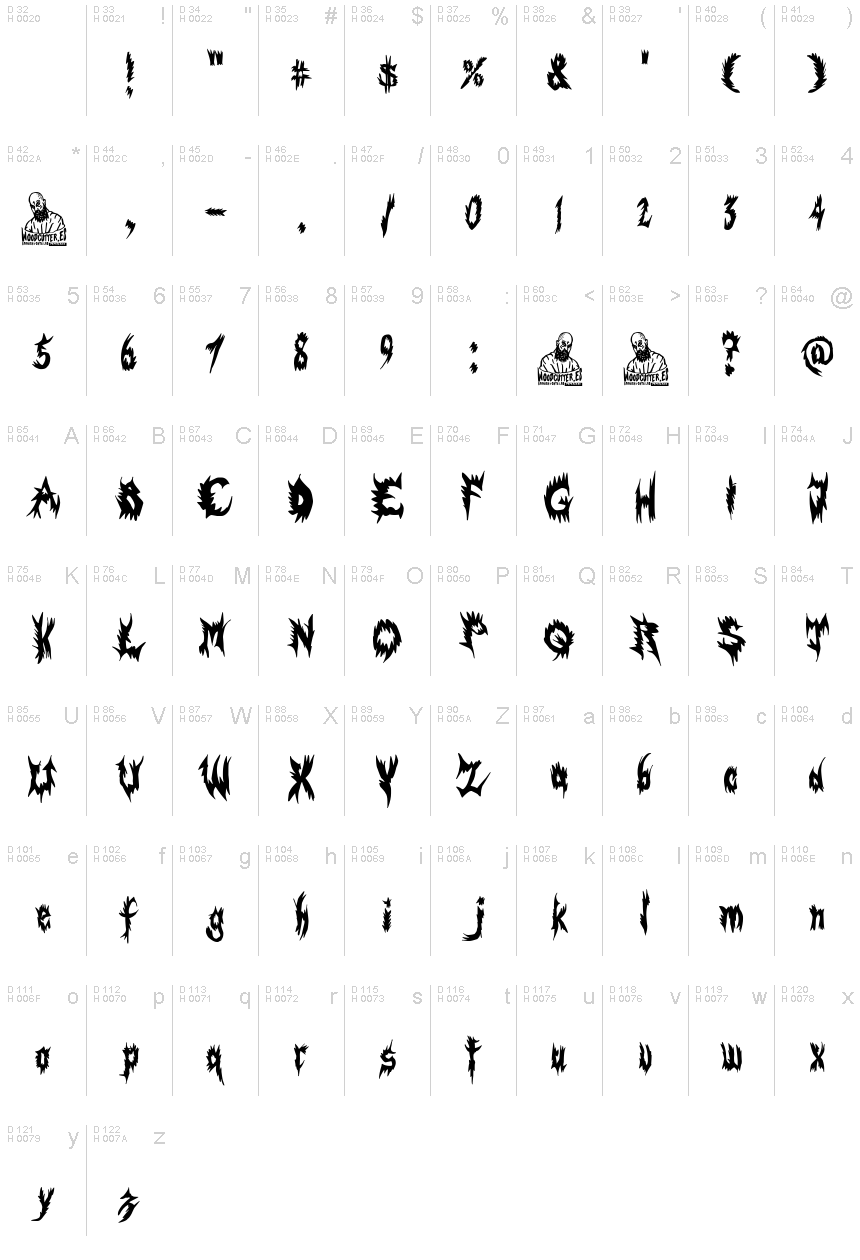
Gothic Pain Army
Gothic Pain Army font, crafted by Woodcutter, embodies a striking gothic aesthetic that commands attention. Its bold strokes and jagged edges invoke a sense of edgy intensity, making it perfect for designs that aspire to leave a lasting impression. The font's unapologetic style exudes a raw, almost rebellious energy, ideal for themes focused on alternative culture or the darker facets of creativity.
This font is particularly well-suited for band posters, album covers, and branding aimed at niche markets where an unconventional look is paramount. Its distinctive character can bring life to graphic novels or horror-themed projects, ensuring that your message resonates with an audience seeking authenticity and uniqueness. In every application, Gothic Pain Army stands out as a formidable choice for daring design expressions.